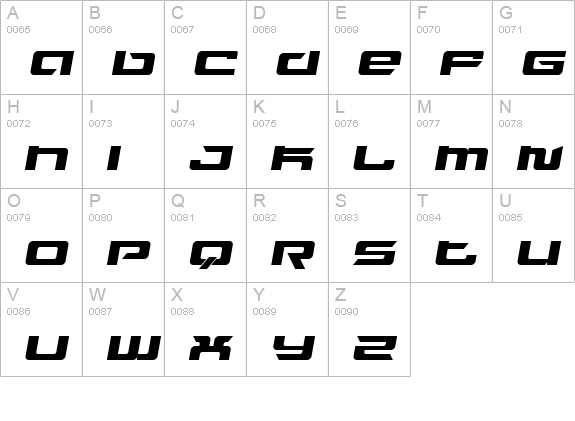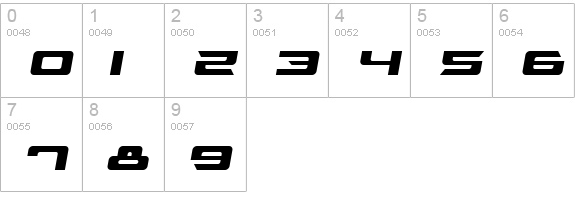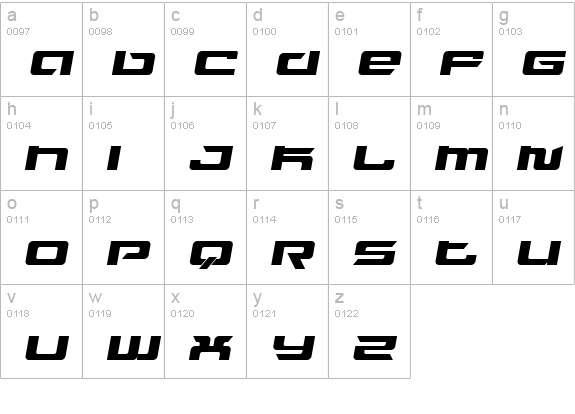
Fusion Italic Font Details
Fusion Italic is a distinctive, italic variant in the Fusion typeface family \xE2\x80\x94 well suited to design and typography projects.
Fusion Italic font is a modern and elegant typeface that seamlessly blends traditional and contemporary design elements. With its sleek and stylish appearance, Fusion Italic is perfect for adding a touch of sophistication to any project. The italicized characters add a dynamic flair to your text, making it stand out and grab attention. What's even better is that Fusion Italic font is available for free download at FontsMarket.com. This means you can easily access this versatile and eye-catching font to enhance your creative projects without any cost. Don't miss out on the opportunity to elevate your designs with Fusion Italic font today!